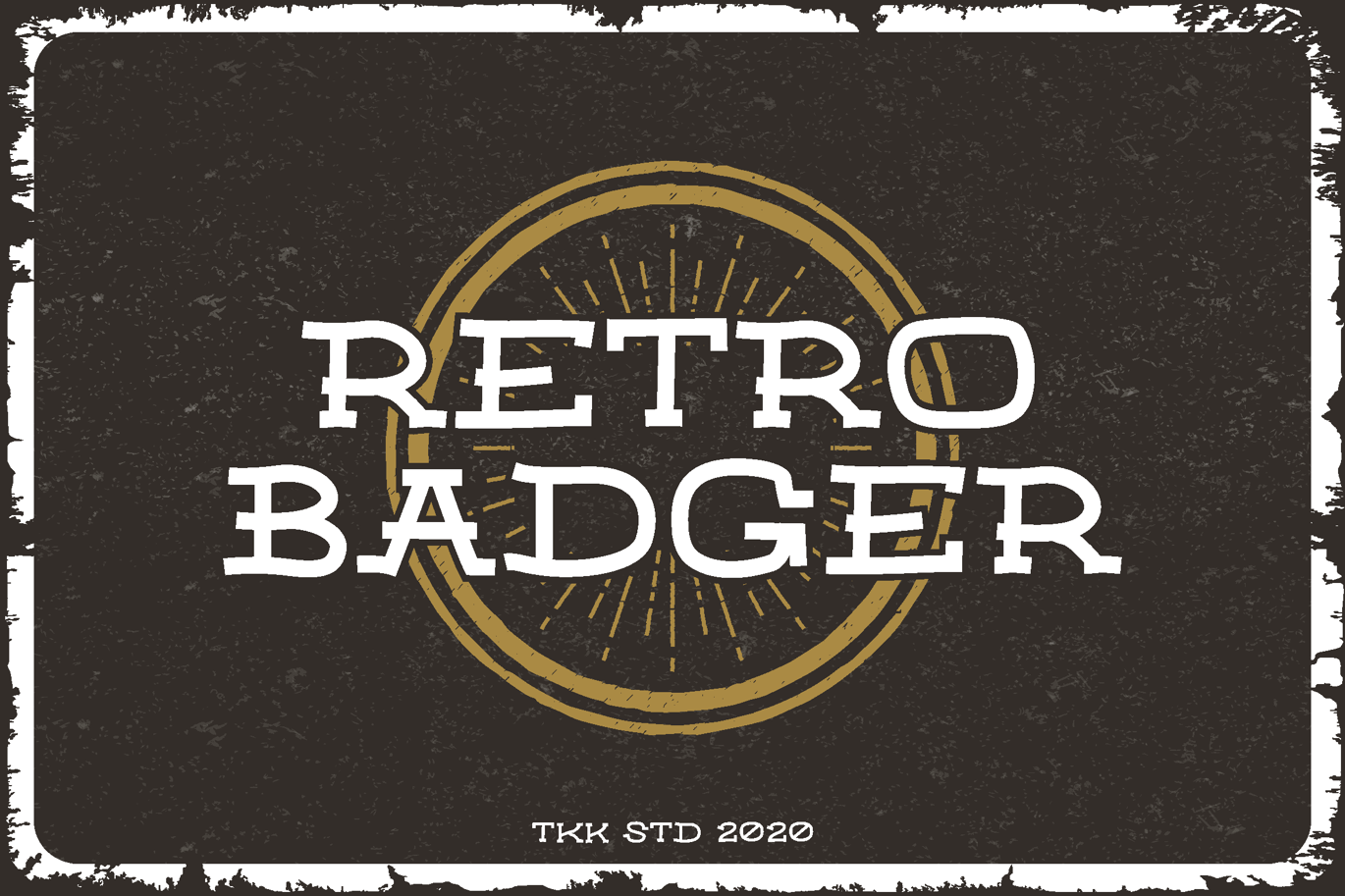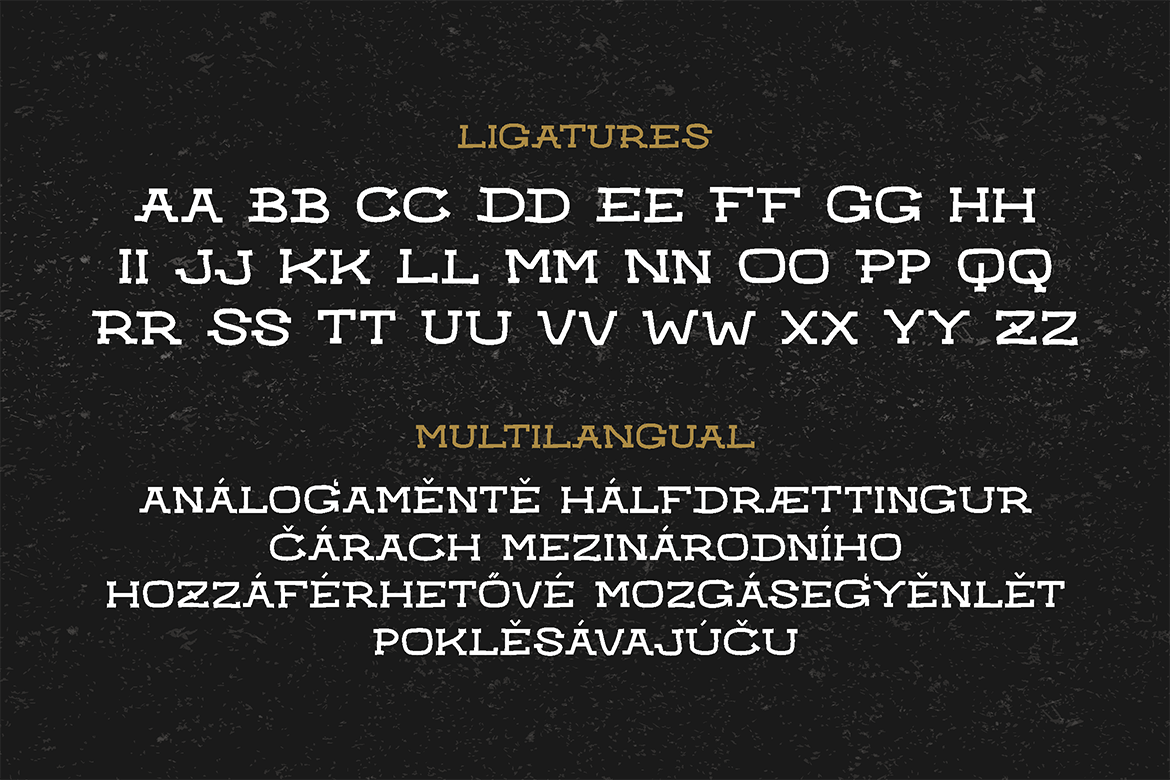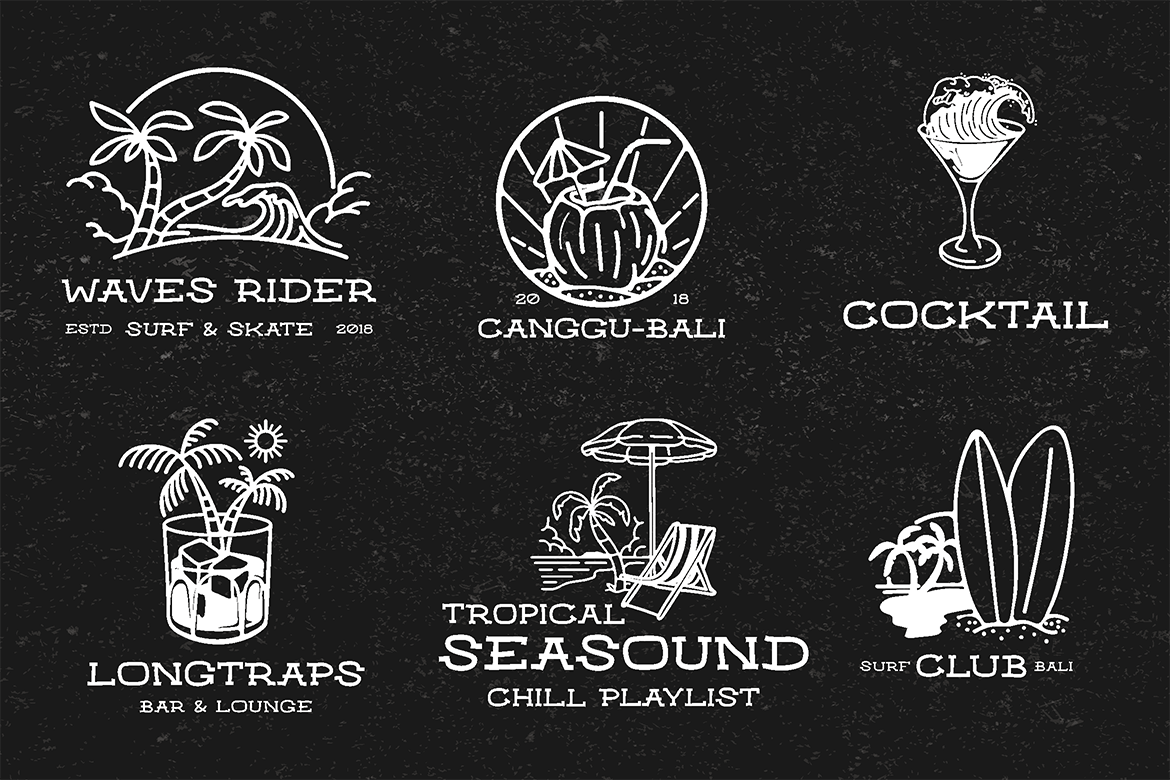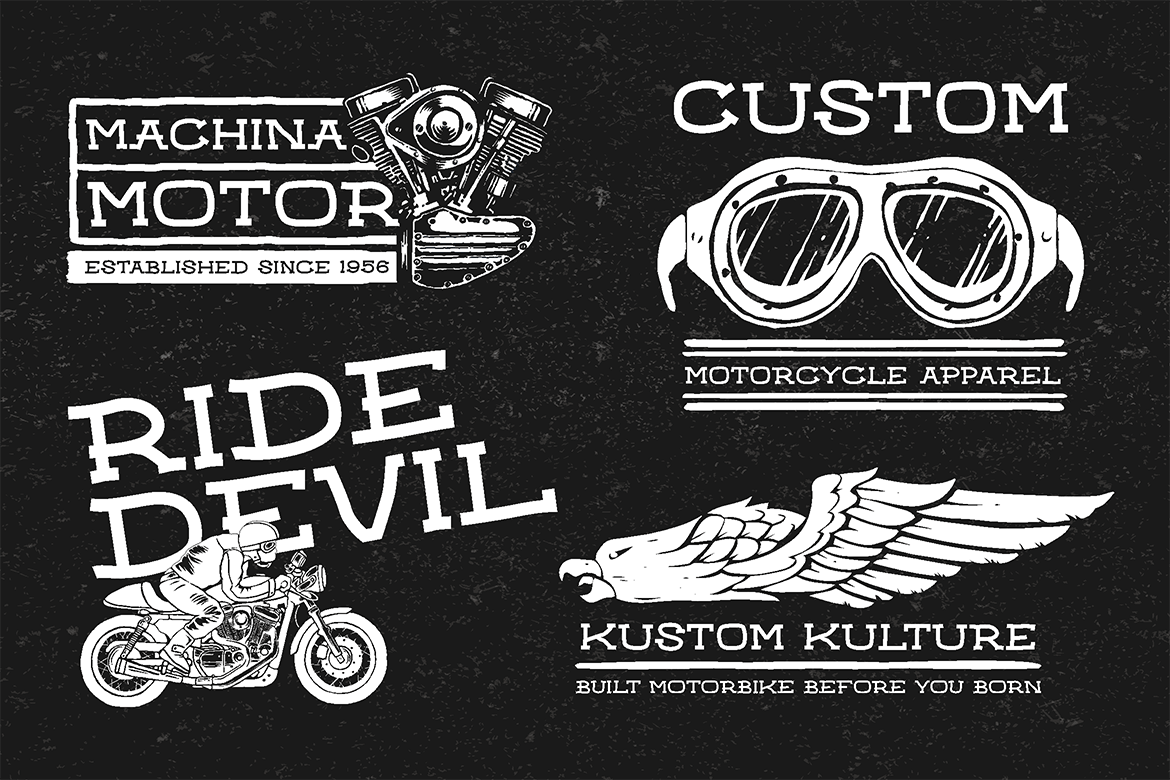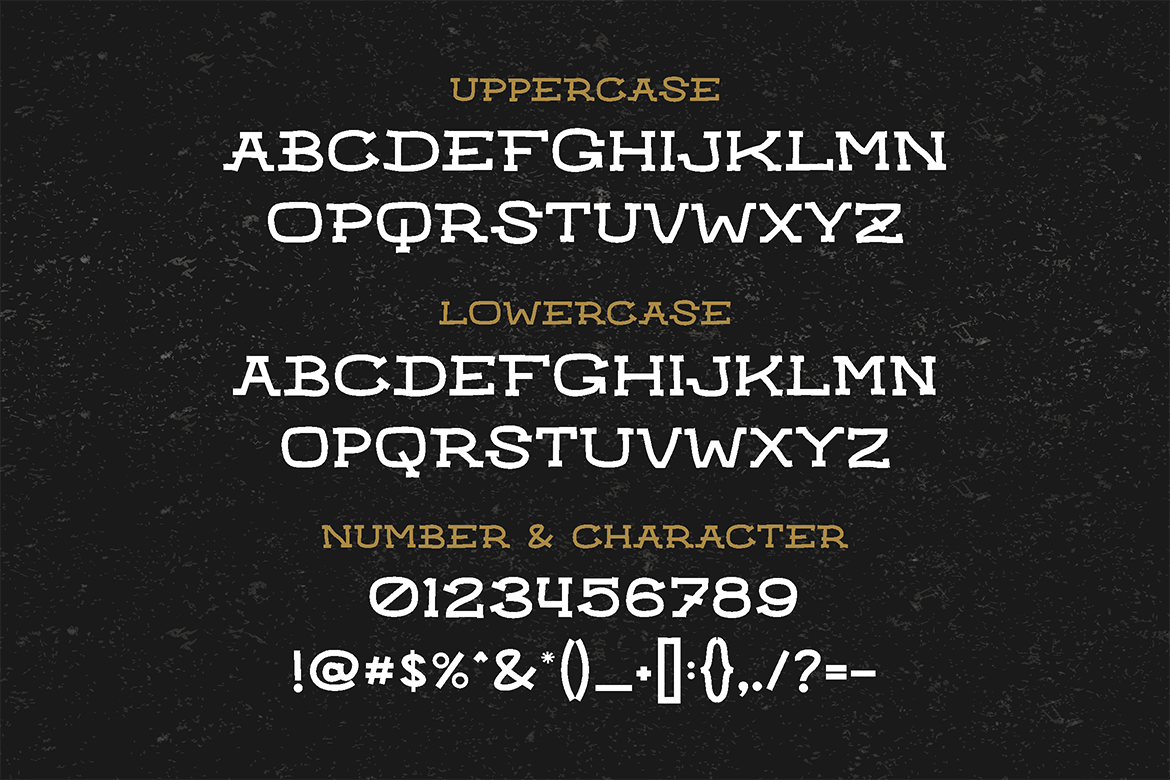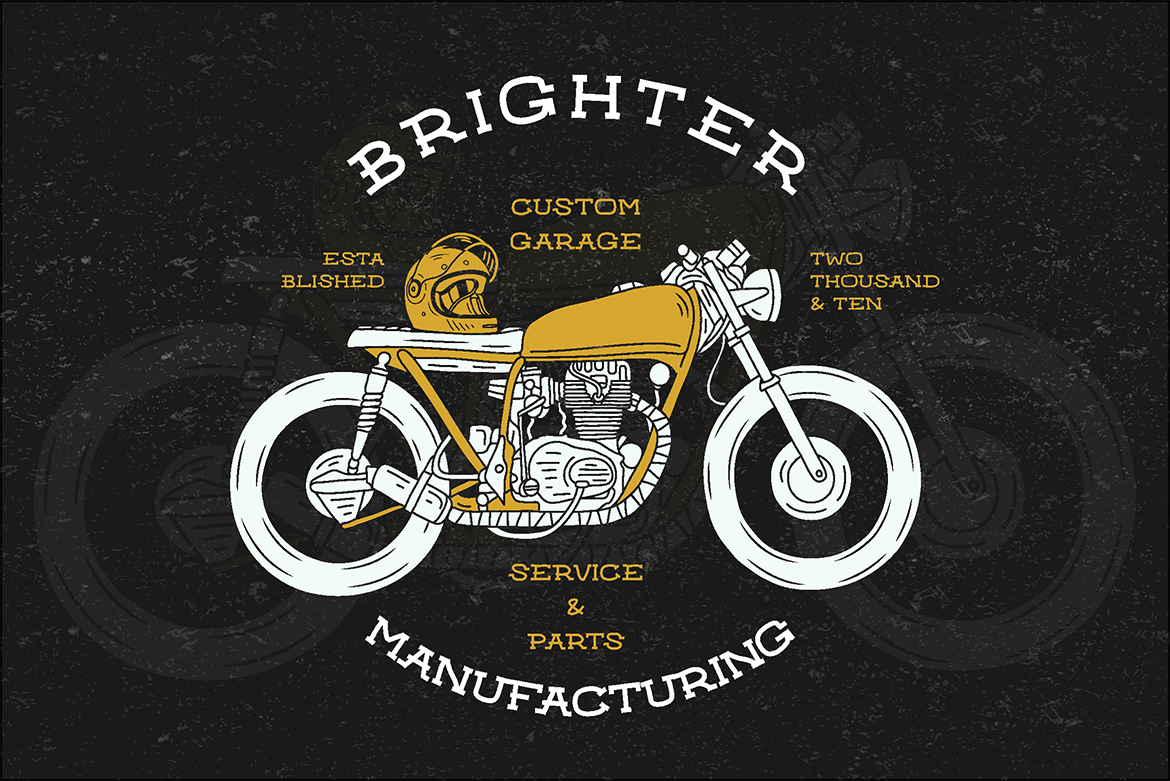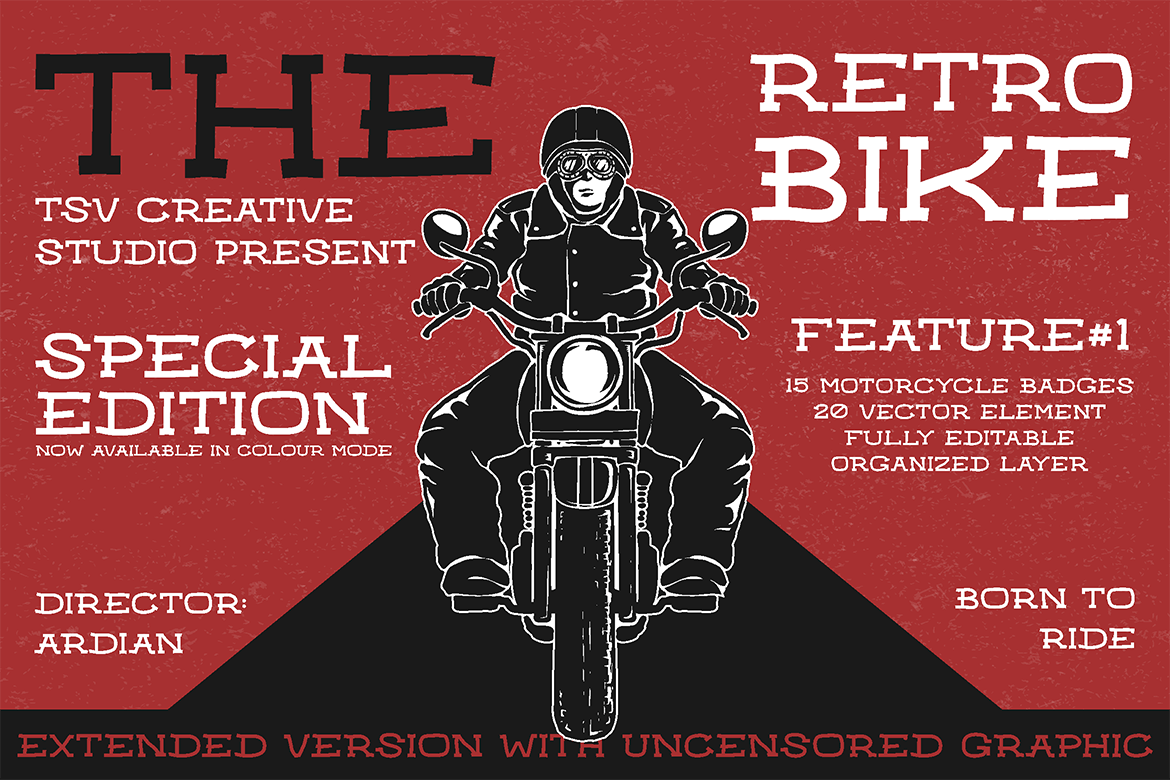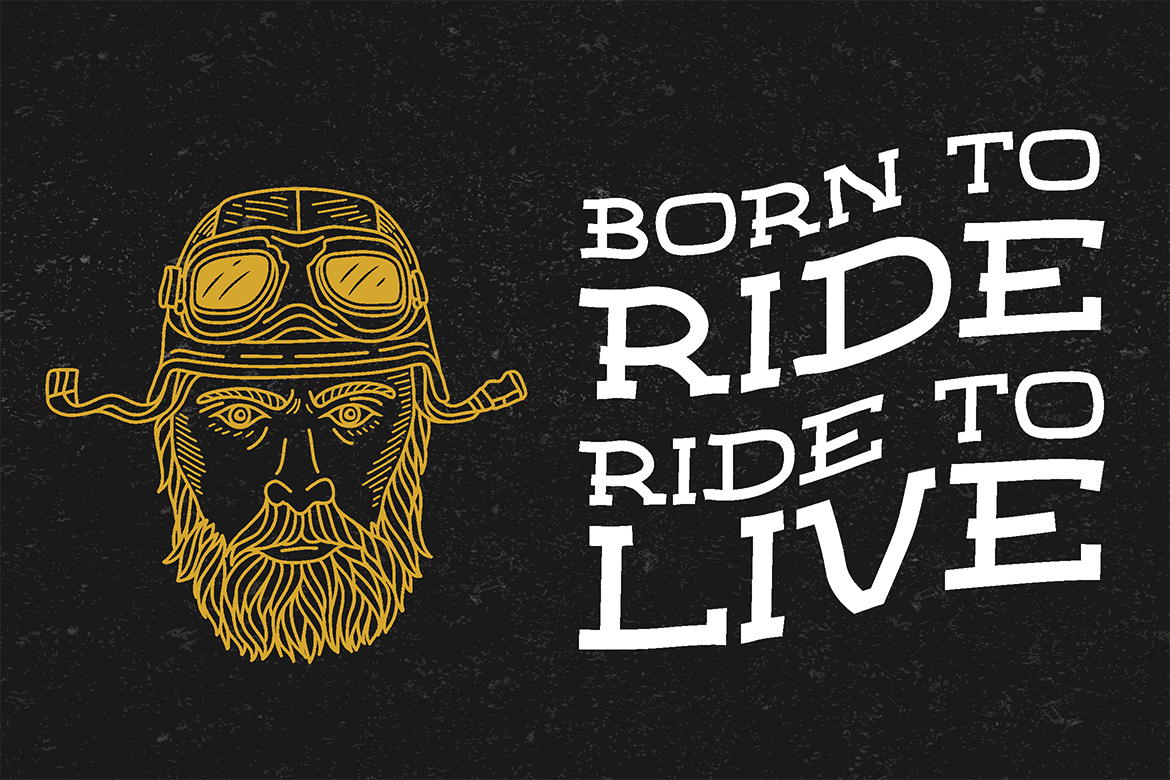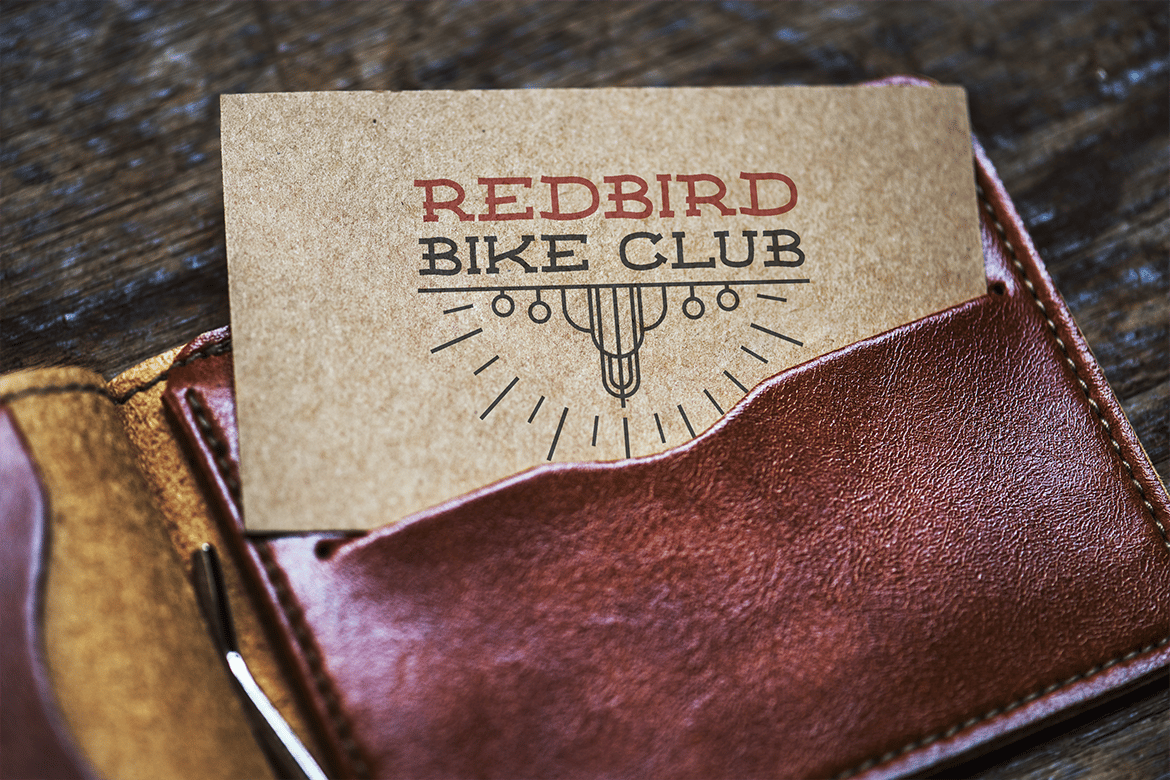
Classic Western Font – Retro Badger
RETRO BADGER – A Bold Typeface for Classic Riders & Heritage Branding
RETRO BADGER is a rugged, vintage-inspired display font designed for motorcycle culture, retro branding, and handcrafted product packaging. With its classic lettering, distressed edges, and bold structure, this font evokes the raw energy of the open road and the timeless appeal of vintage craftsmanship.
Inspired by old-school biker clubs, garage-built machines, and heritage apparel, RETRO BADGER is perfect for motorcycle event posters, whiskey labels, tattoo studios, and leather goods branding. Whether you’re crafting classic workshop signage, custom patches, or gritty merchandise, this font delivers bold, nostalgic character with an undeniable rebel spirit.
Why Choose RETRO BADGER?
- Authentic Vintage Aesthetic – Evokes classic Americana and old-school biker culture.
- Perfect for Motorcycle & Heritage Branding – Ideal for garage logos, leather goods, and custom apparel.
- Rough & Rugged Appeal – Brings a tough, rebellious attitude to any design.
- Great for Retro Merchandise – Works beautifully on patches, whiskey labels, and workshop signage.
- Timeless & Handcrafted Feel – Designed for brands that value legacy, craftsmanship, and freedom.
Hit the road with RETRO BADGER – the font for rebels, riders, and risk-takers.